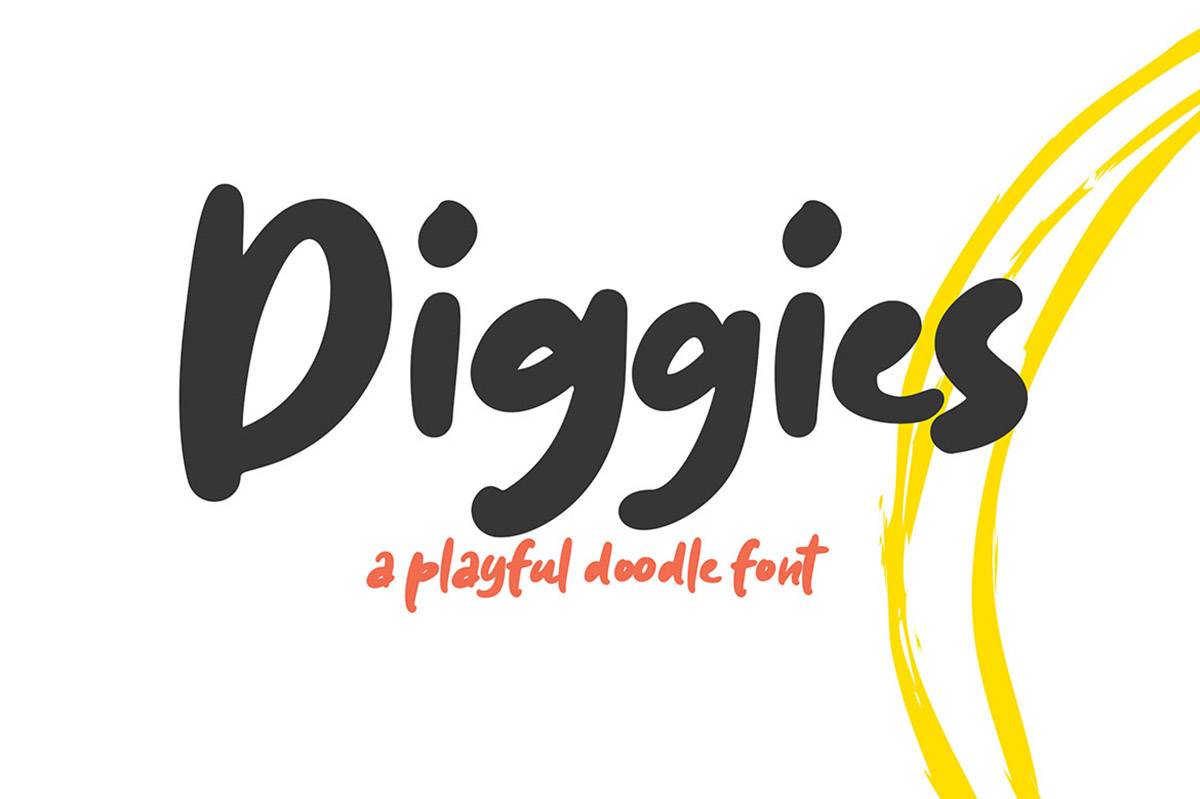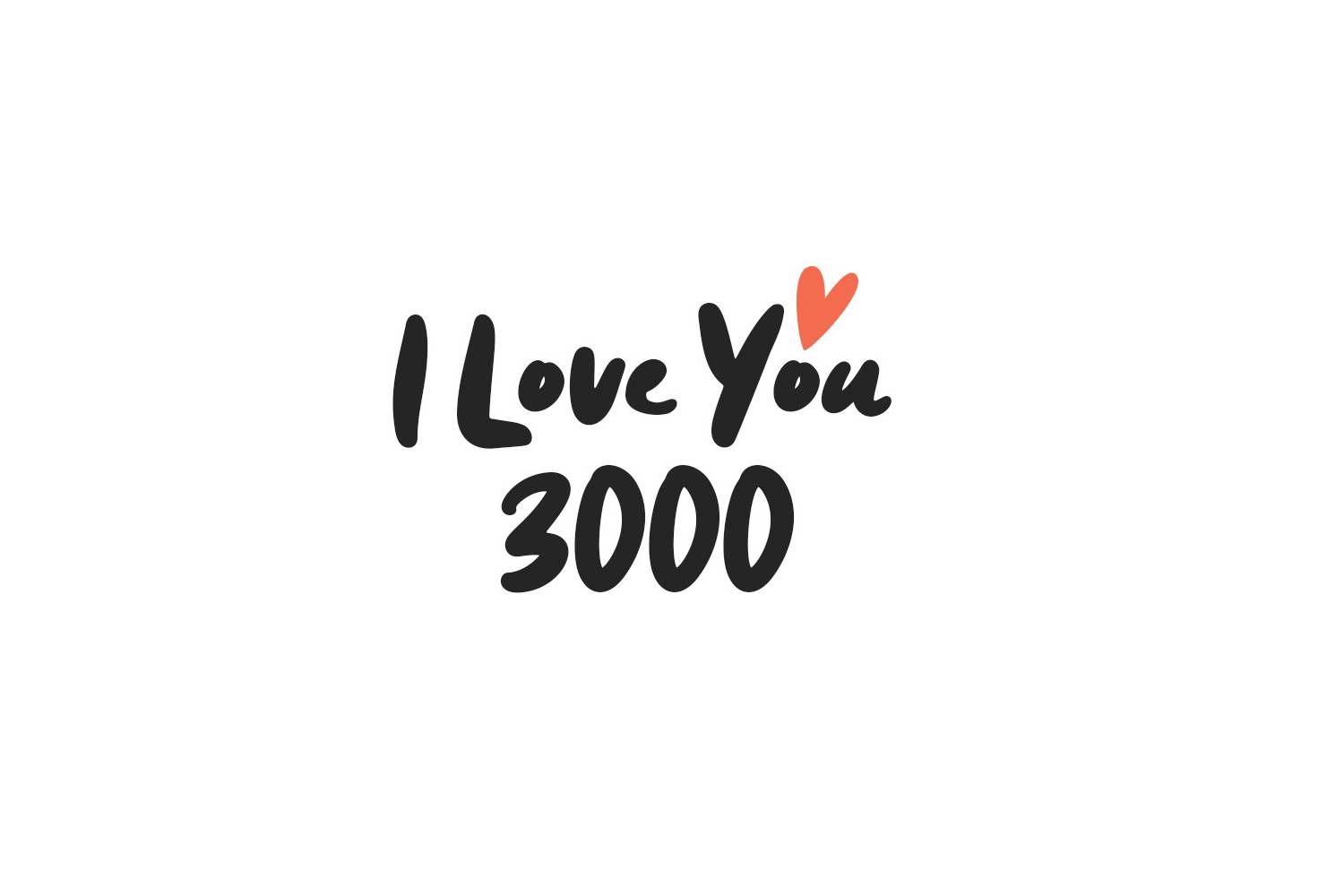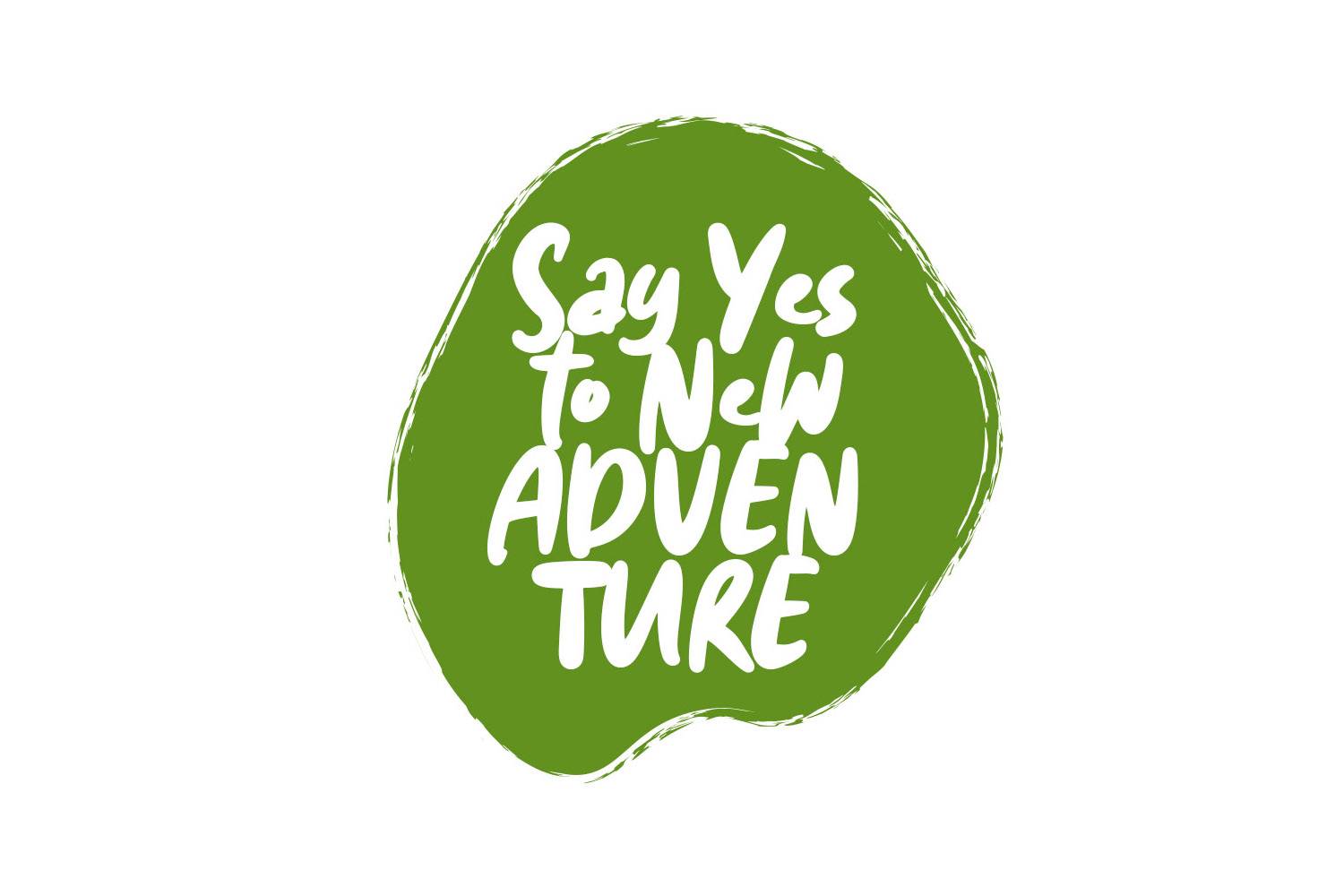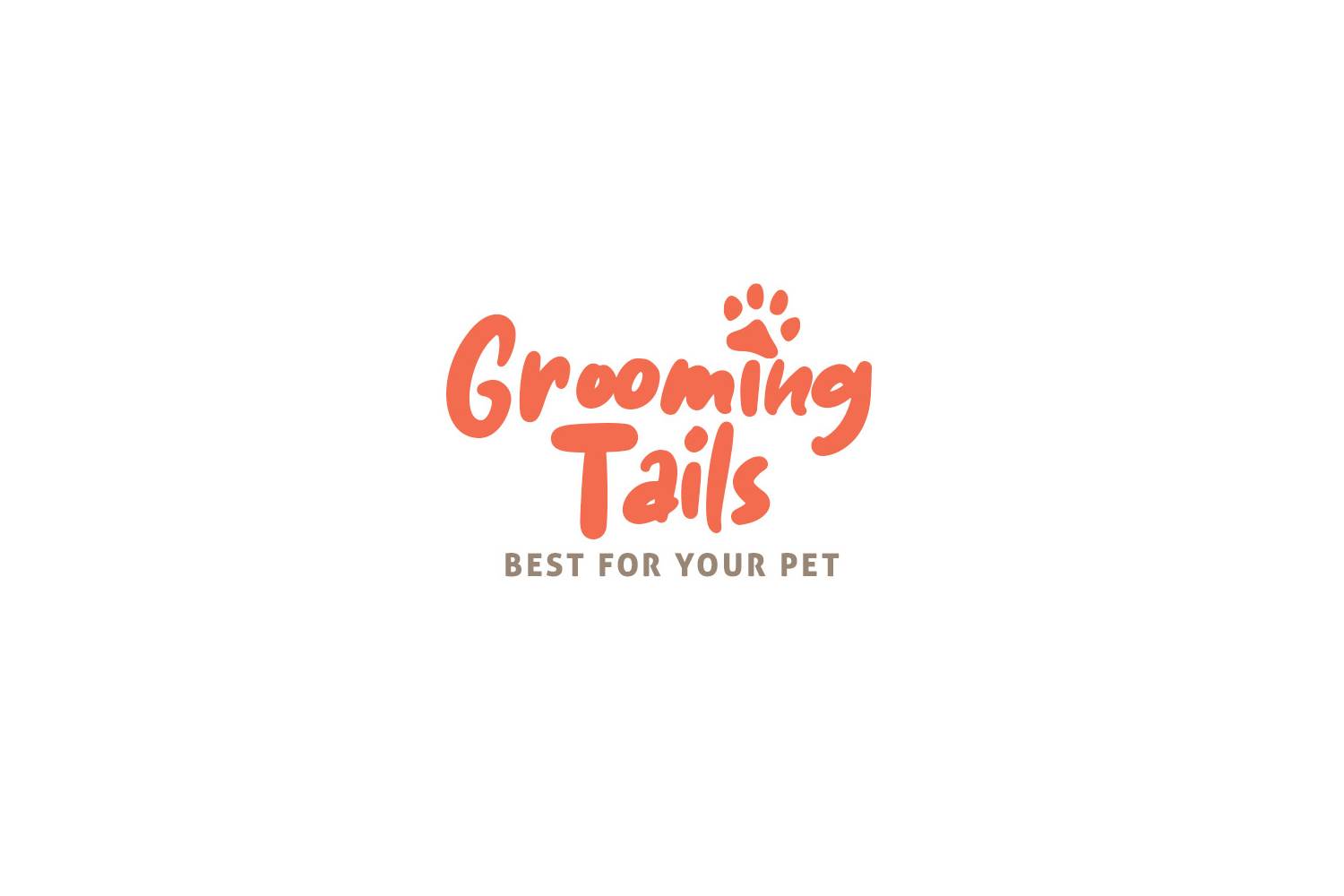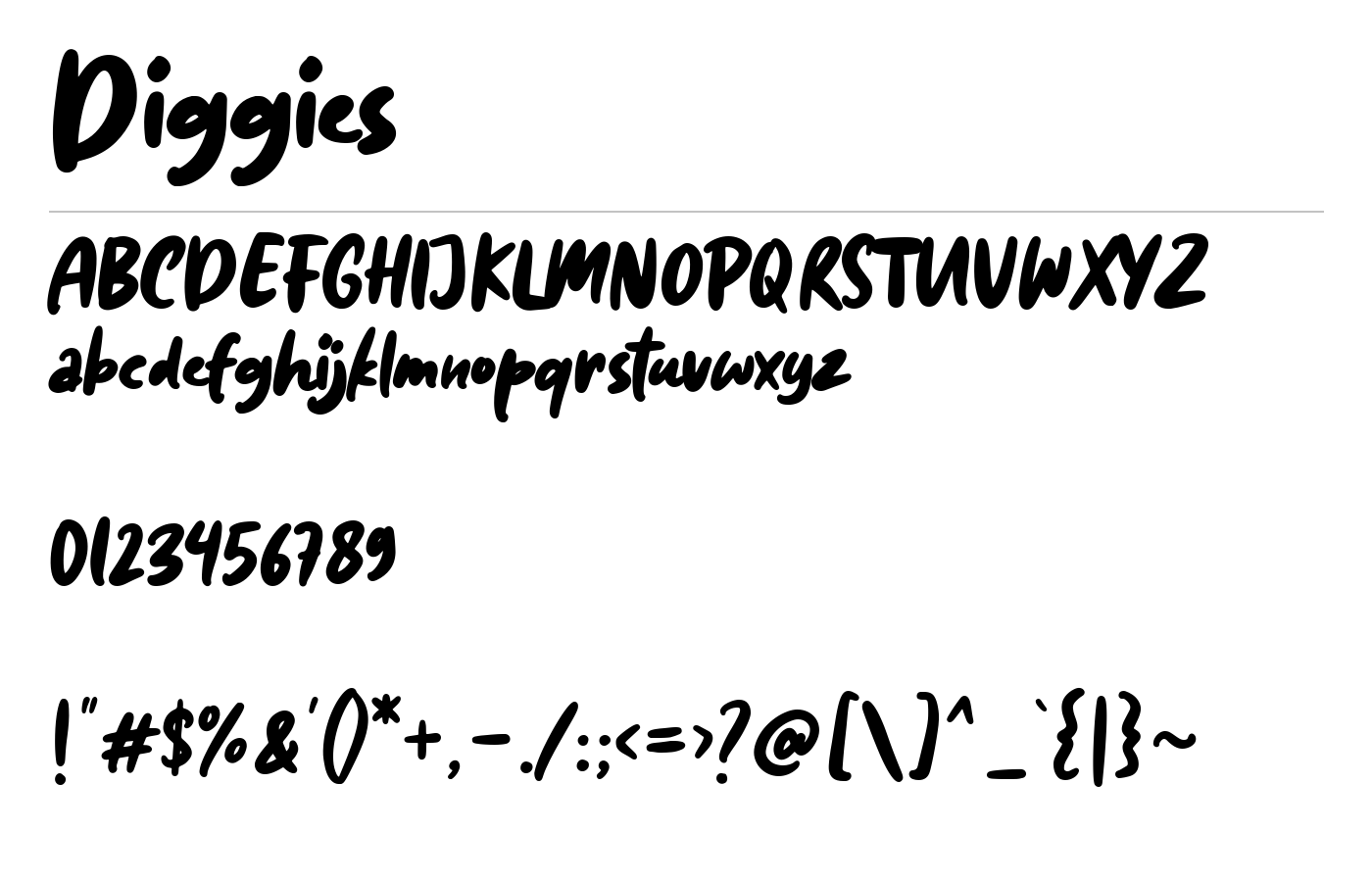
Diggies is a bold, casual handwritten font with a friendly and playful character, featuring smooth, rounded strokes and a lively, informal style. Its slightly condensed letterforms and consistent weight give it a dynamic yet approachable feel, making it perfect for creative projects, children’s materials, and branding that seeks a personal touch. This font shines in headlines, logos, and packaging where a fun, energetic vibe is desired without losing readability.
Diggies Font
About Diggies Font
| Designer | Wahyu Andi Prasetiyo |